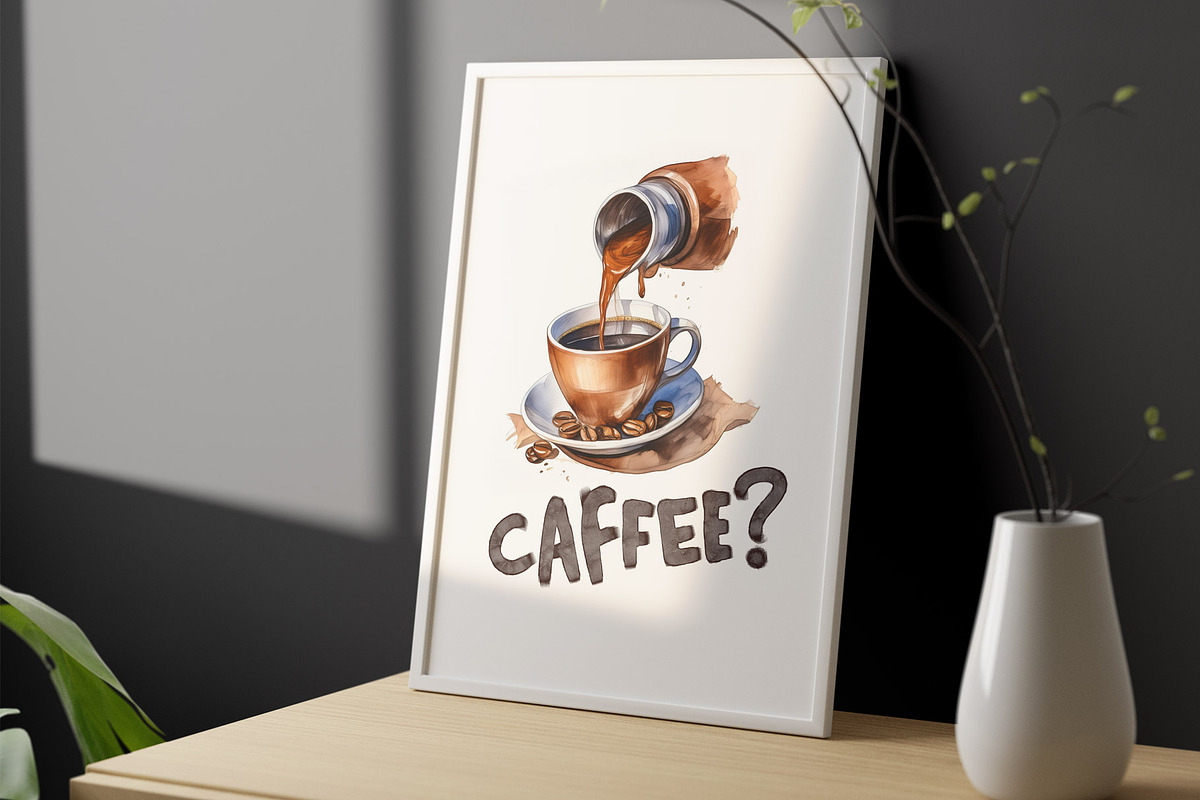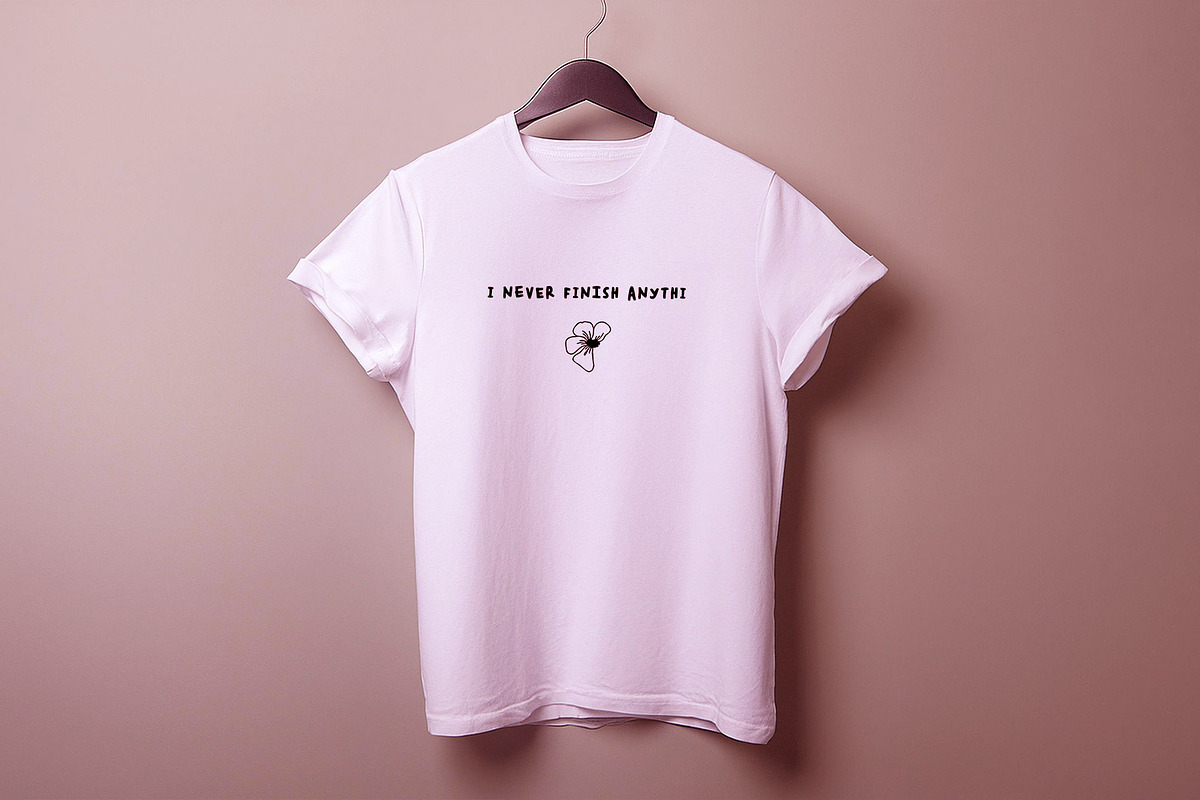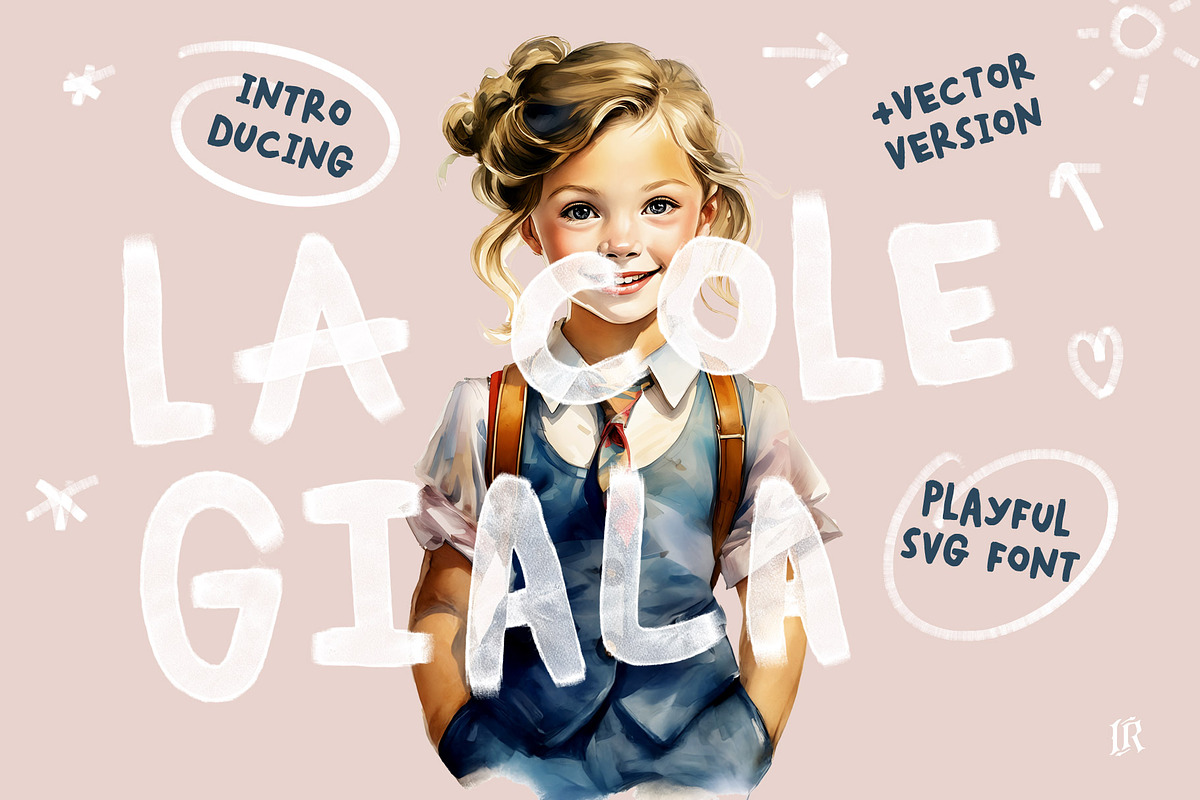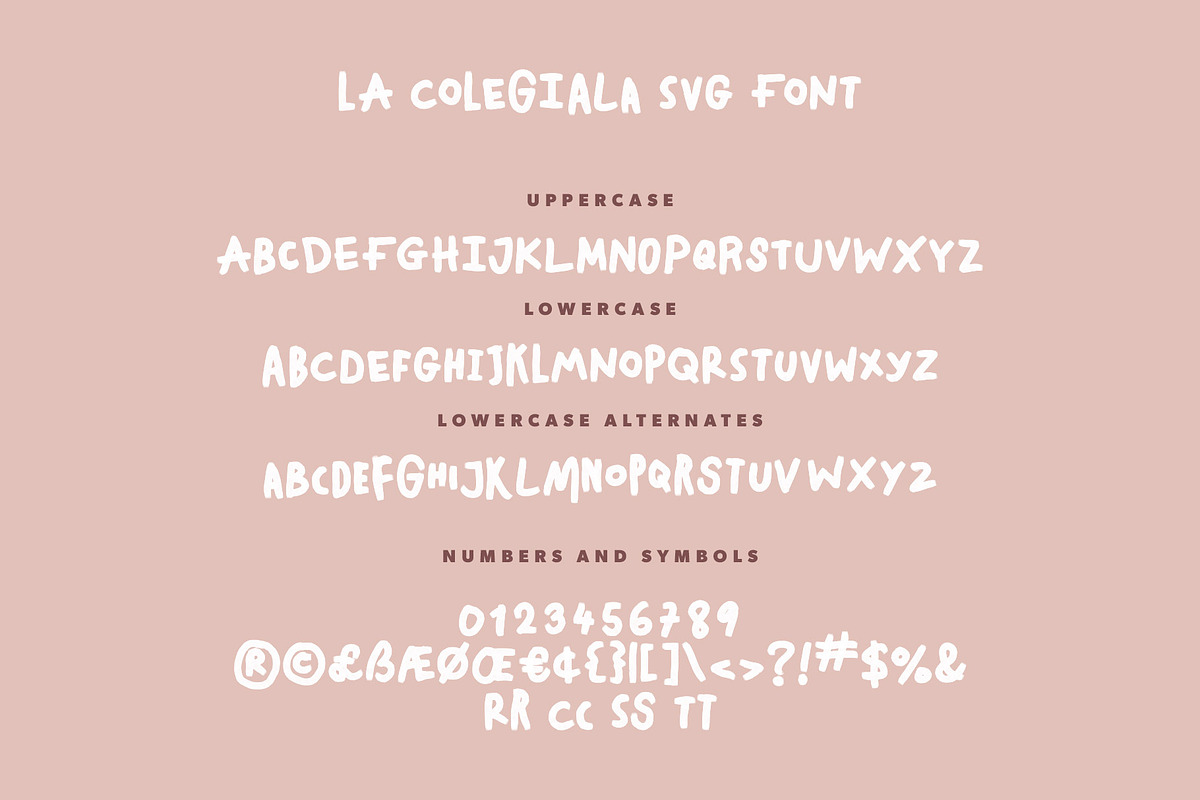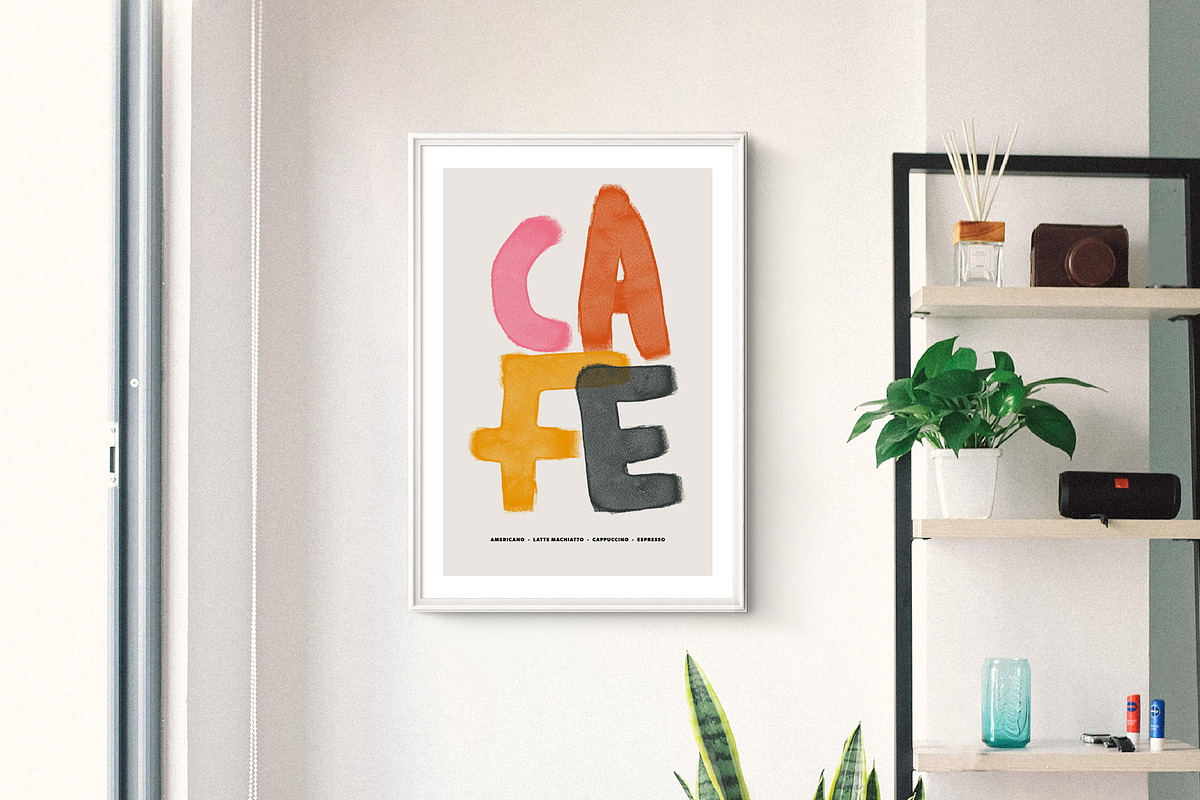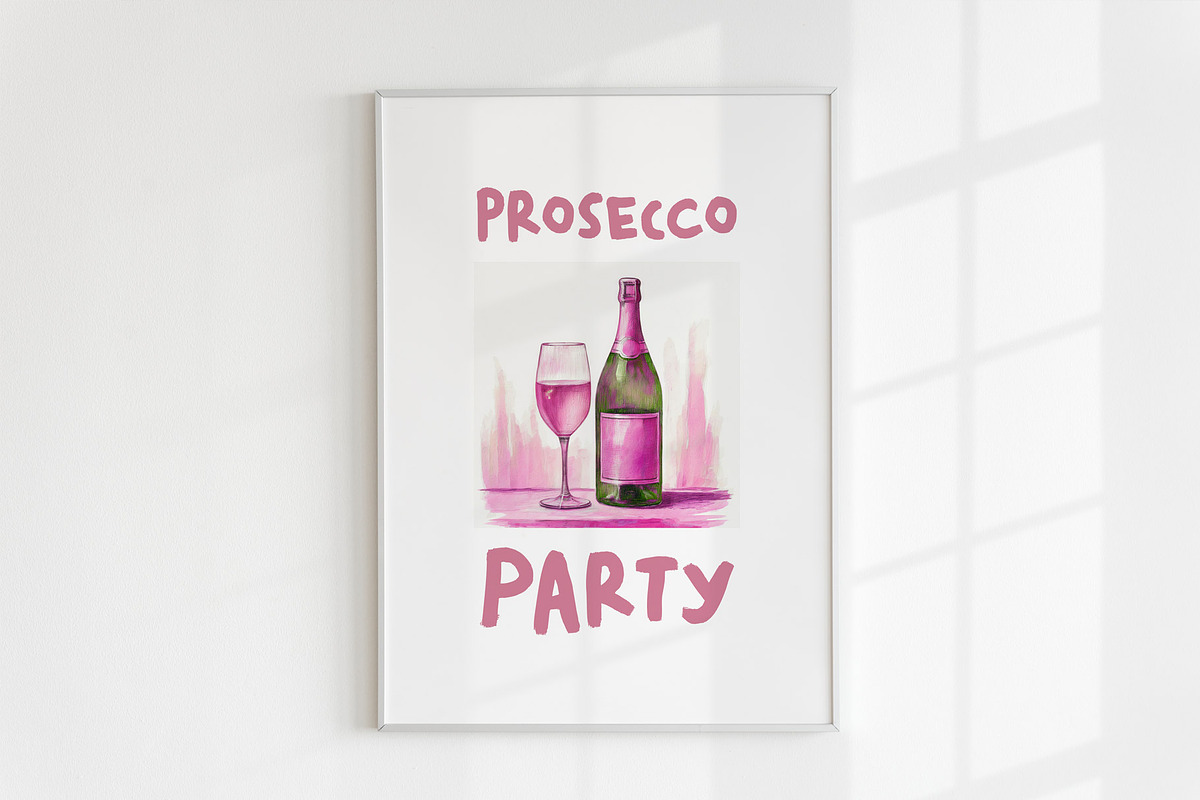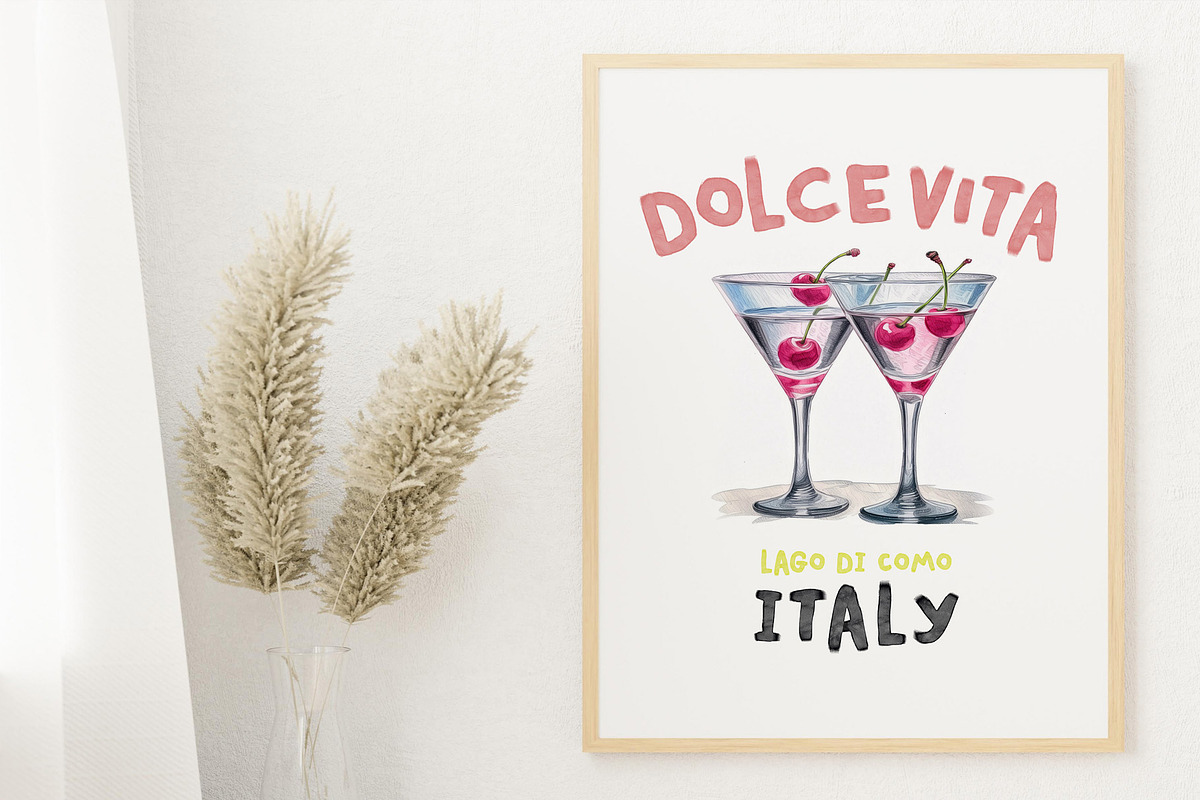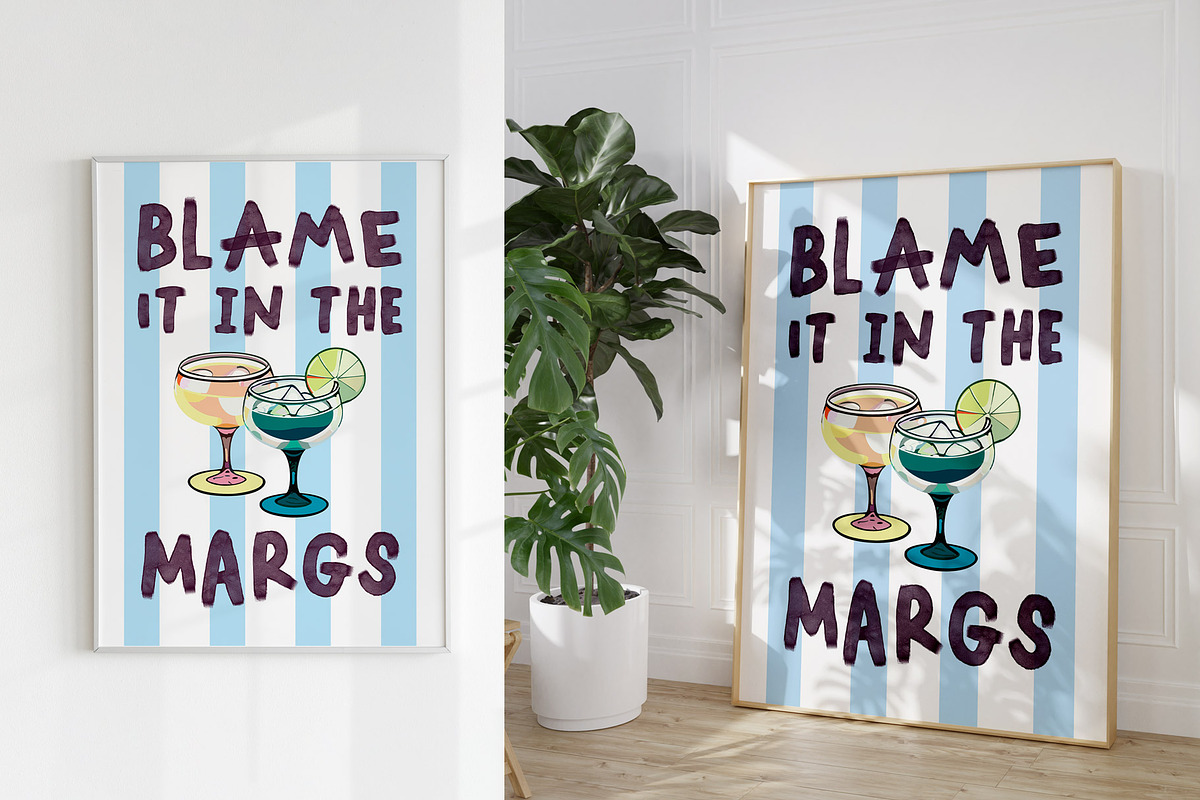
La Colegiala SVG Font
La Colegiala SVG Font preserves all the high definition detail of the original handwritten letters. Using OpenType-SVG technology it truly looks realistic. The OpenType-SVG format requires Photoshop CC 2017 or Illustrator CC 2018 (or newer). Regular OTF format is also included.